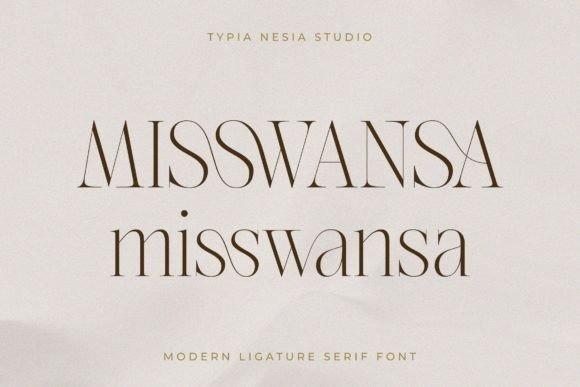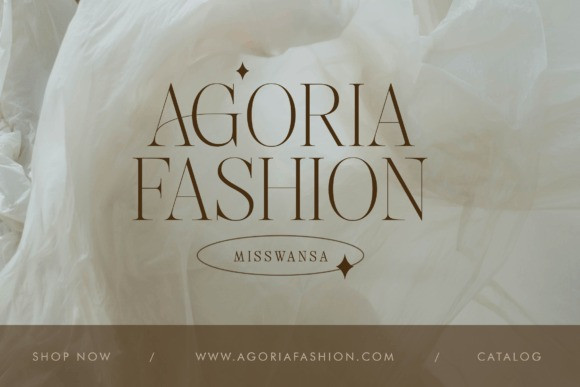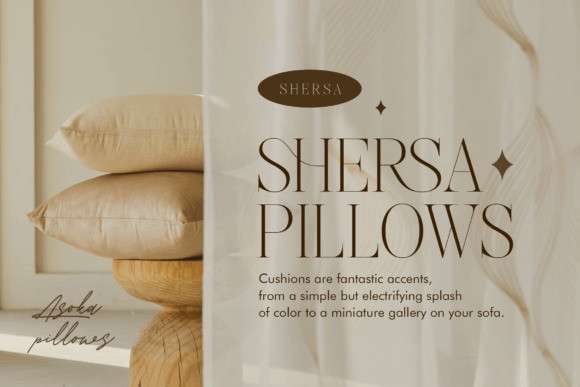
Misswansa Font
Misswansa – Modern Ligature Display Light Serif – Fancy Beauty Vintage Light Font
Misswansa comes with alternates and ligatures, so you can combine it to make a perfect typography design. Suitable for any design needs : logo, branding, modern advertising design, vintage and retro design, holiday and traveling design, fashion and music, animation or movie title, poster quote, book / fantasy novel cover title, editorial design, website / blog, card, and more.